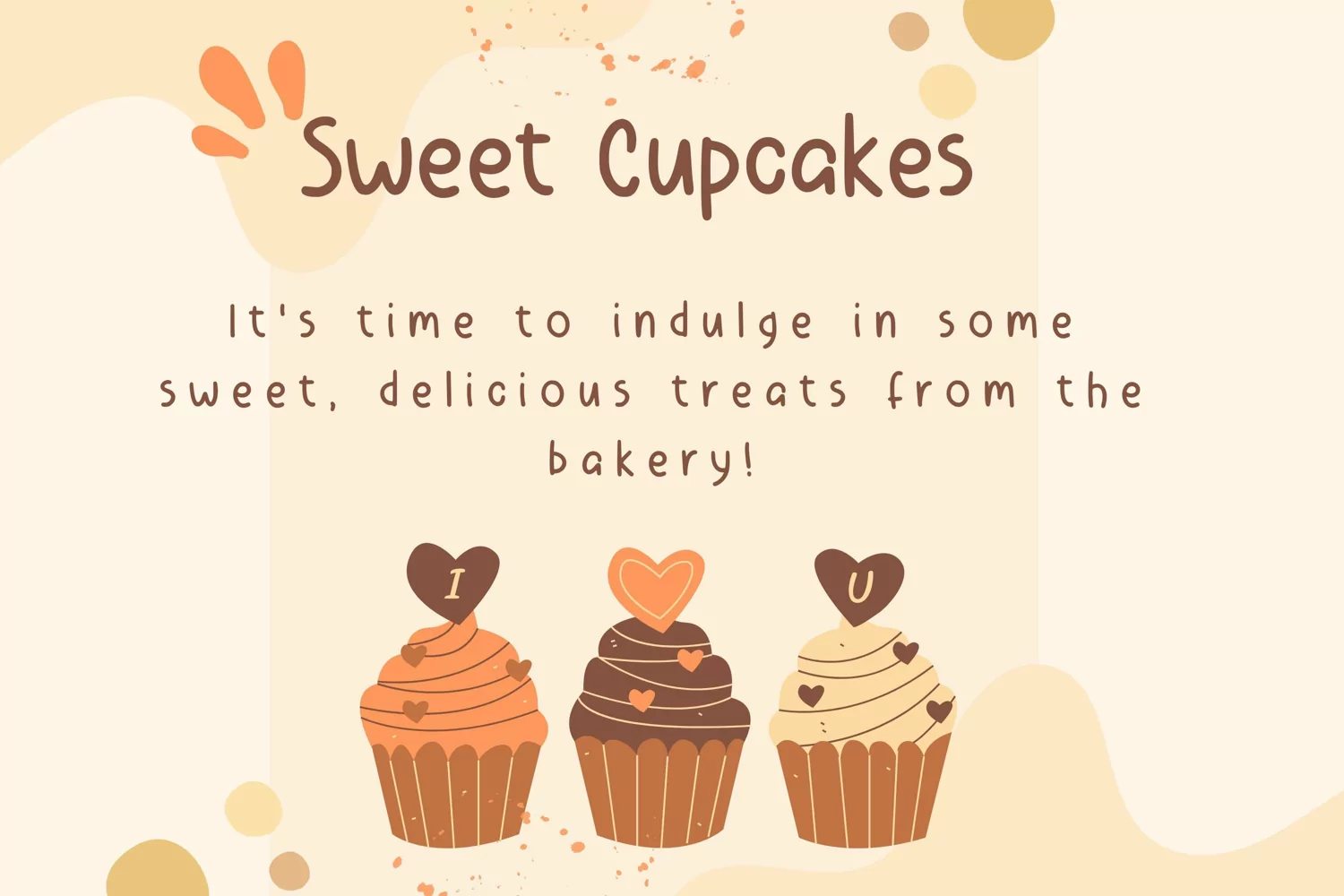
Introducing Sugarlie: the embodiment of charisma and charm wrapped up in a captivating handwritten font. It’s perfectly flexible for every creative project, brilliantly representing its namesake with delicate, playful strokes. Sugarlie is highly recommended for anyone who wants to infuse a dash of sweetness into their branding or craft projects. This delightful and authentic handwriting style adds a special touch, ensuring your work stands out and leaves a memorable impression. Discover the charm of Sugarlie, where cuteness meets function in a handwritten font designed for versatility and appeal.